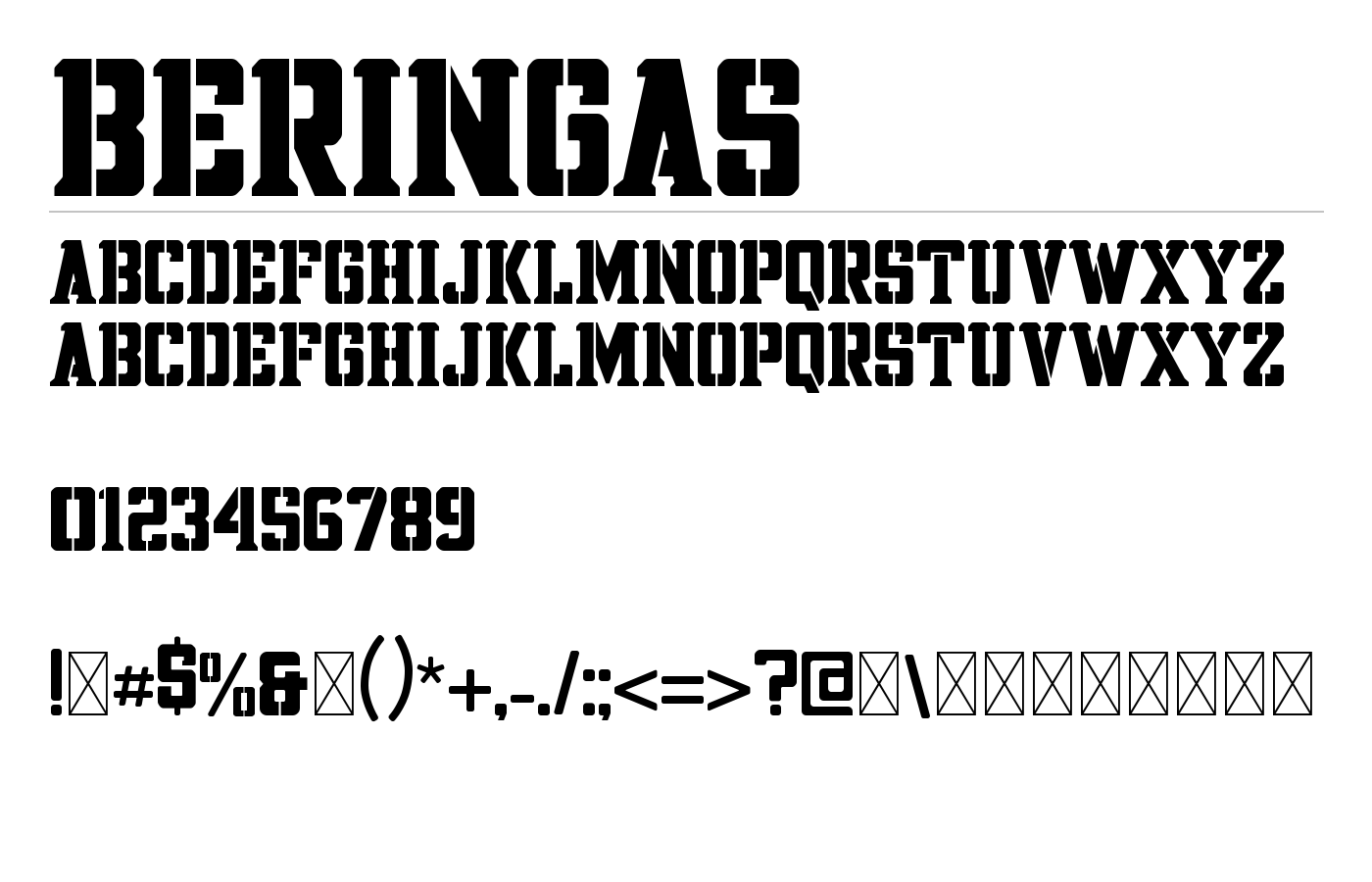
BERINGAS is a bold slab serif typeface with a strong, condensed structure and high contrast that gives it a rugged yet refined look. Its geometric shapes and blocky serifs evoke a vintage Western or industrial style, making it perfect for eye-catching headlines, logos, and branding that needs a tough, confident personality. This font stands out in contexts where a bold, authoritative impression is desired, such as posters, signage, and fashion branding.
BERINGAS Font